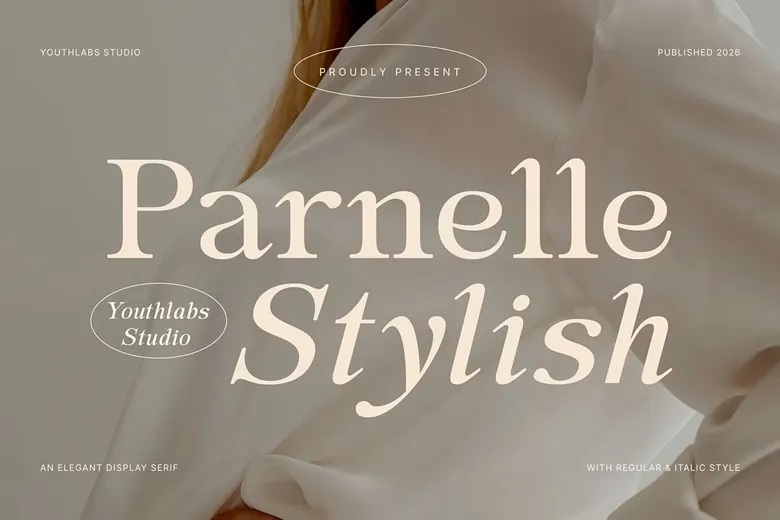
Parnelle Font
Parnelle shows what modern elegance can look like. Youthlabs Studio carefully designed this display serif to mix classic letterforms with a modern touch, making it feel both timeless and new. Its high-contrast strokes and smooth curves stand out and draw the eye, but always subtly.
If you are working on a luxury brand, a stylish magazine, or high-end packaging, Parnelle gives your project a polished and professional look.
Parnelle comes in both regular and italic styles, giving you the flexibility to create bold, stylish designs that feel graceful and confident.
Parnelle Serif Font